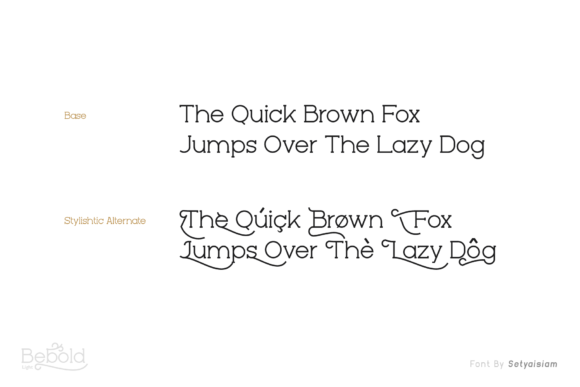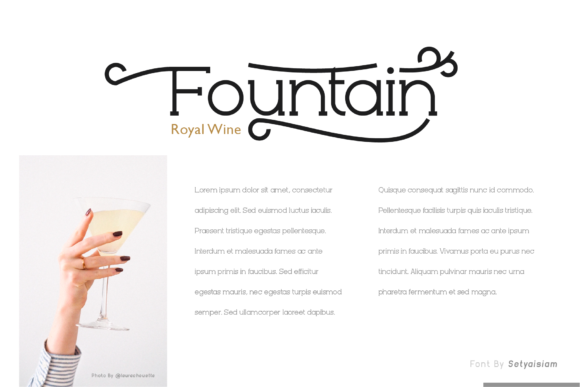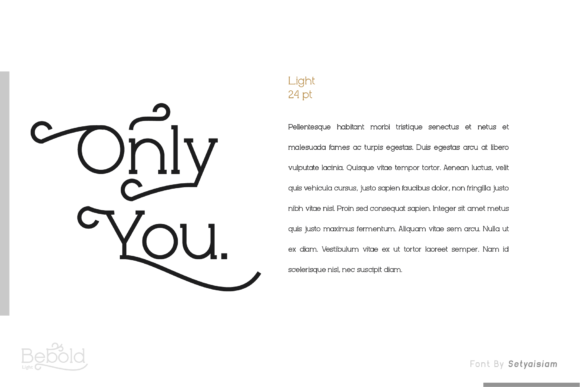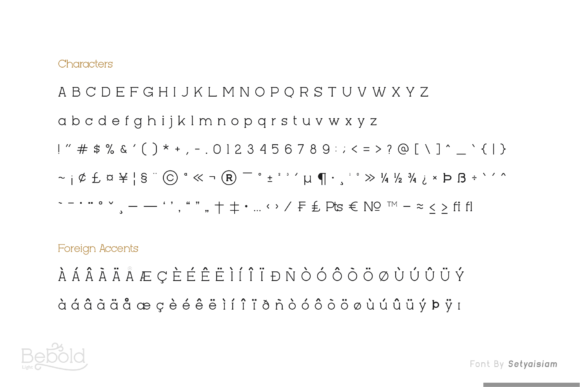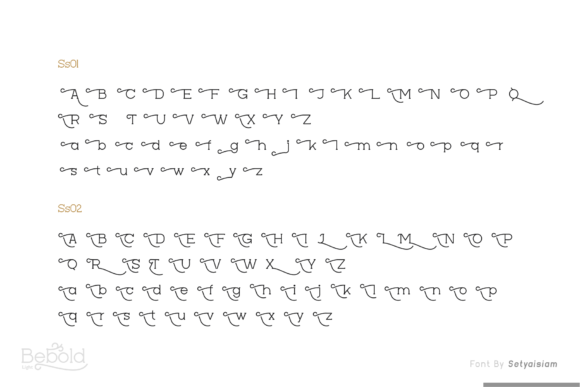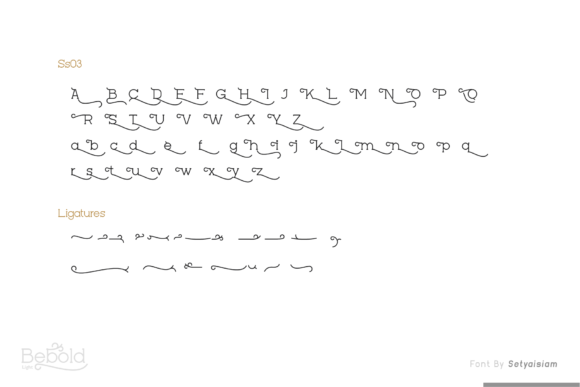
Introduction to Bebold – Light Font
Bebold is a casual serif font.
Simple and easy to use, this font will be very beautiful if you mix it with your various craft designs .